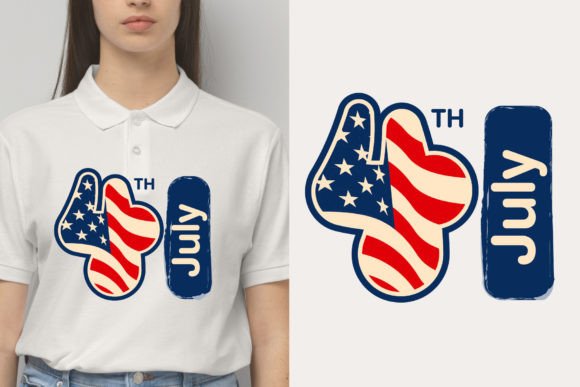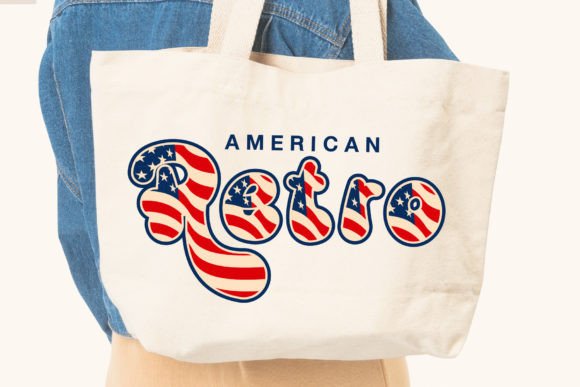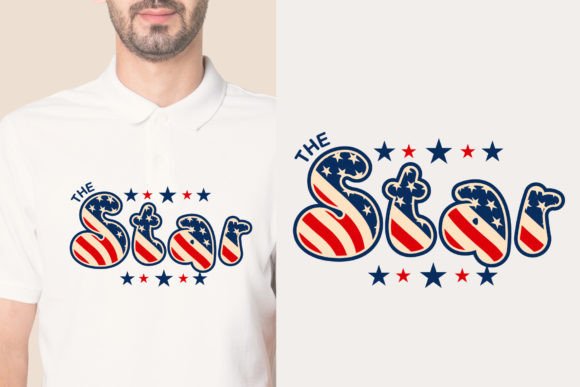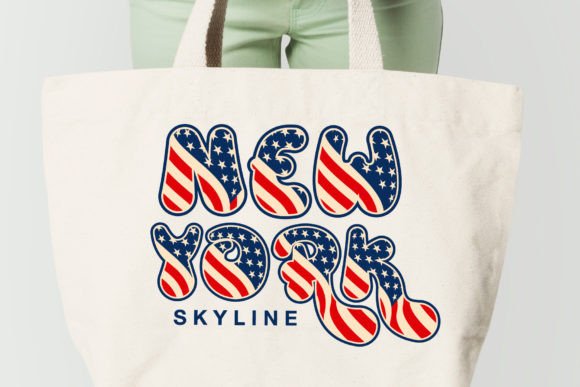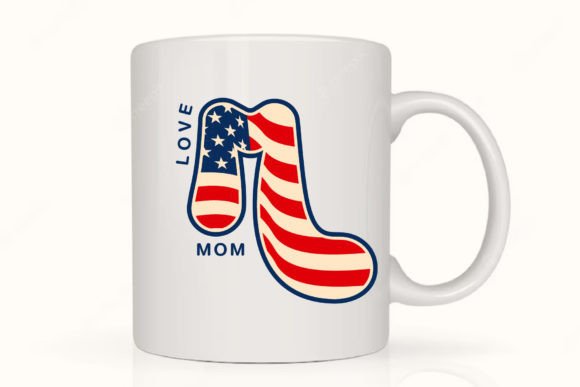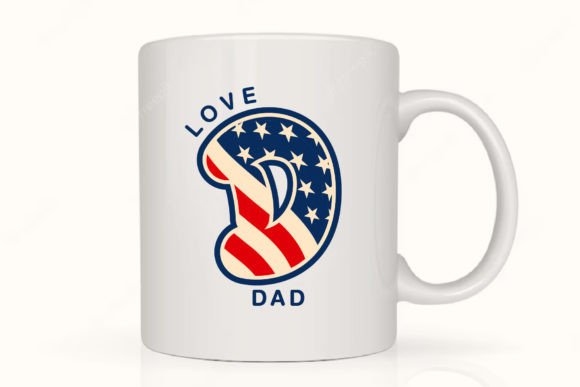
Introduction to Belief Usa Font
Belief Usa is a color font groovy retro style with a great punch.
Everything written in this font will be instantly recognizable and will attract attention It will work great for comic book style, online games, cards, love shirts, posters, movie titles, eye-catching social media posts, or anything that requires youthfulness and courage.